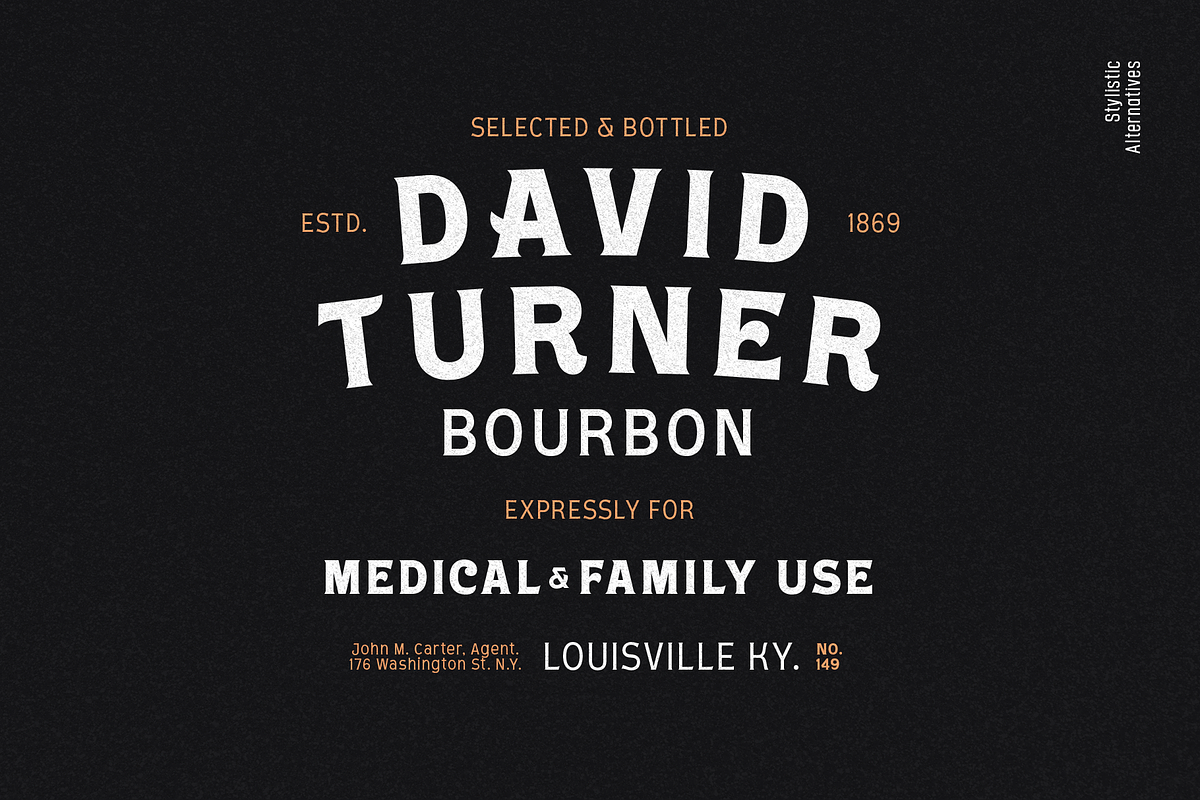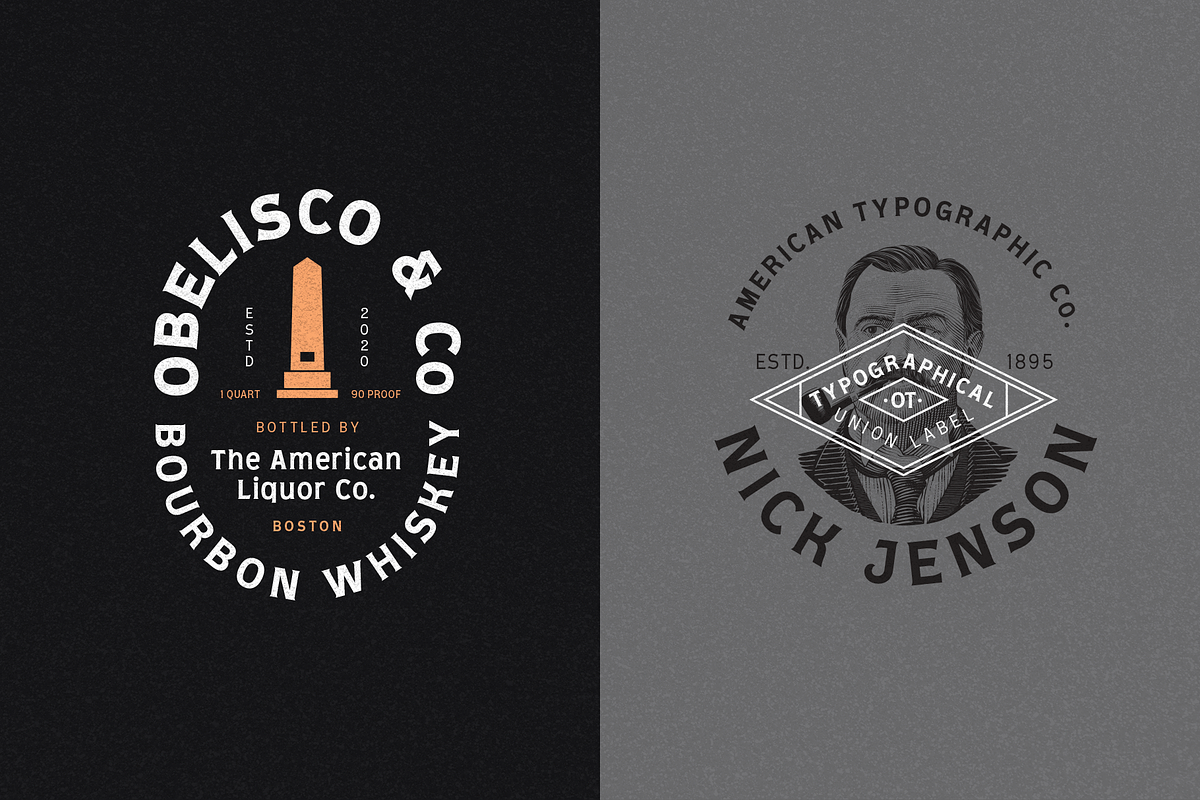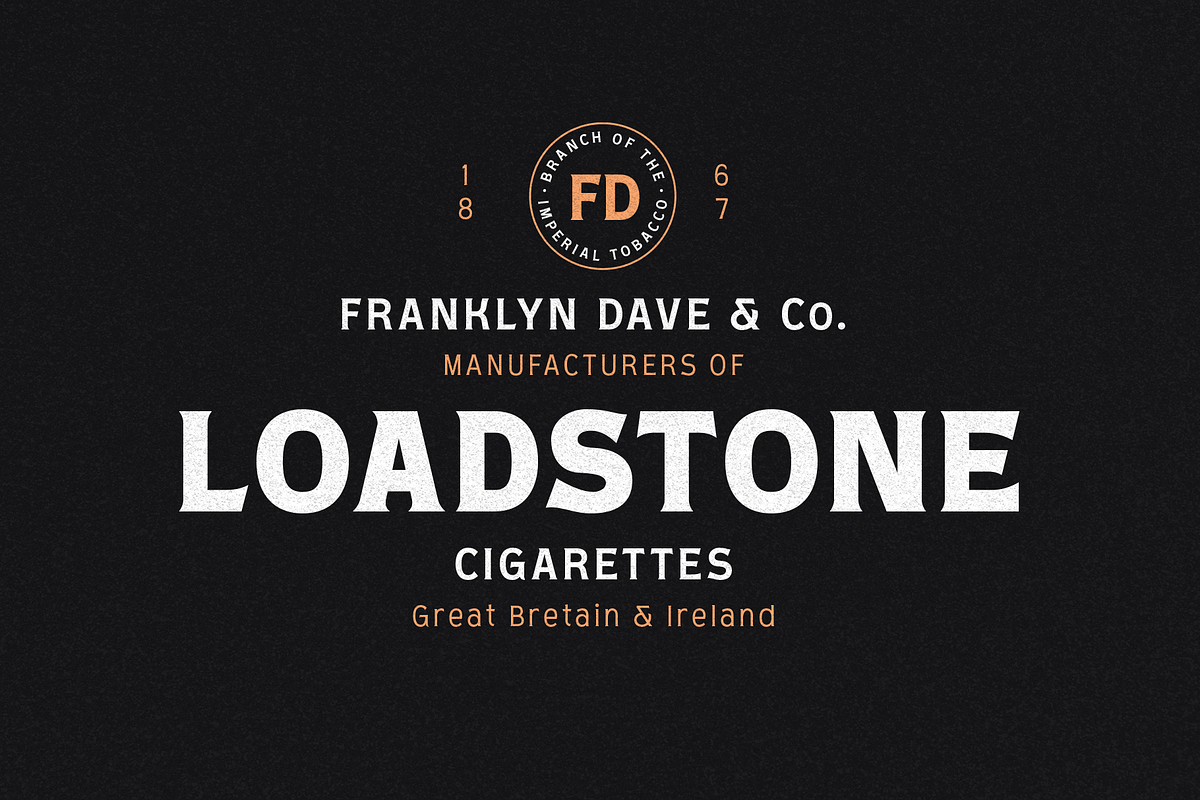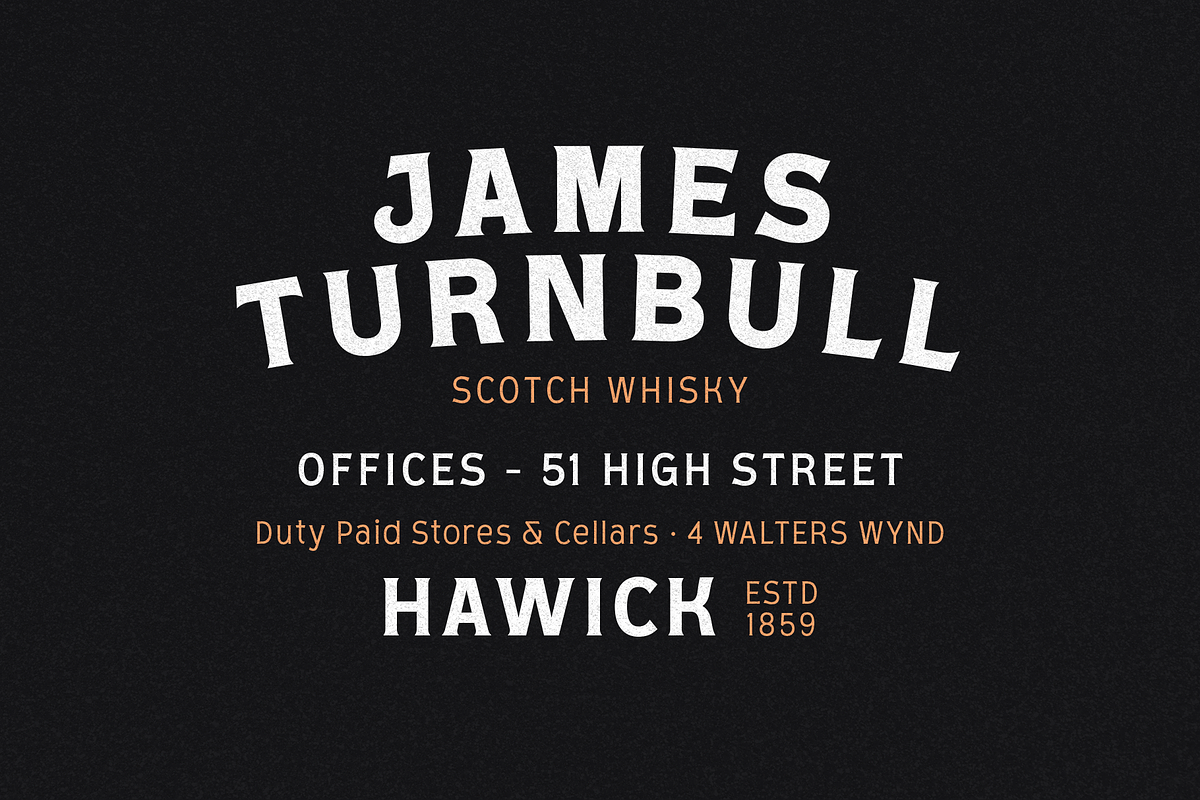
Reyes Typeface + Logo Templates
Reyes is a modern typeface with influence on consumer product labels from the early 1900s, is ideal for use in display texts and thanks to its 6 typographical weights lends itself to complex typographic design compositions. In addition to the basic alphabet, we have designed a series of stylistic variants that give value to their use in logos of branding projects.